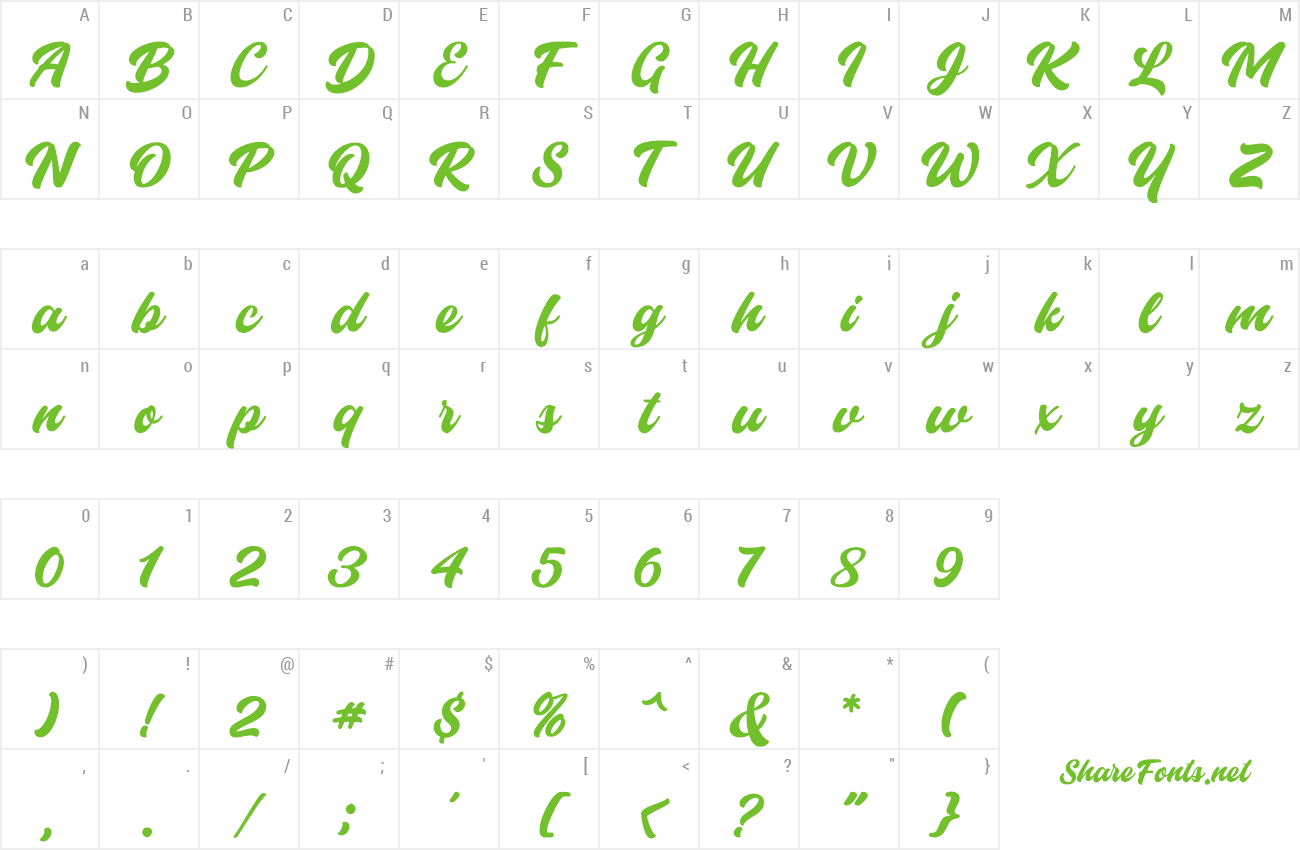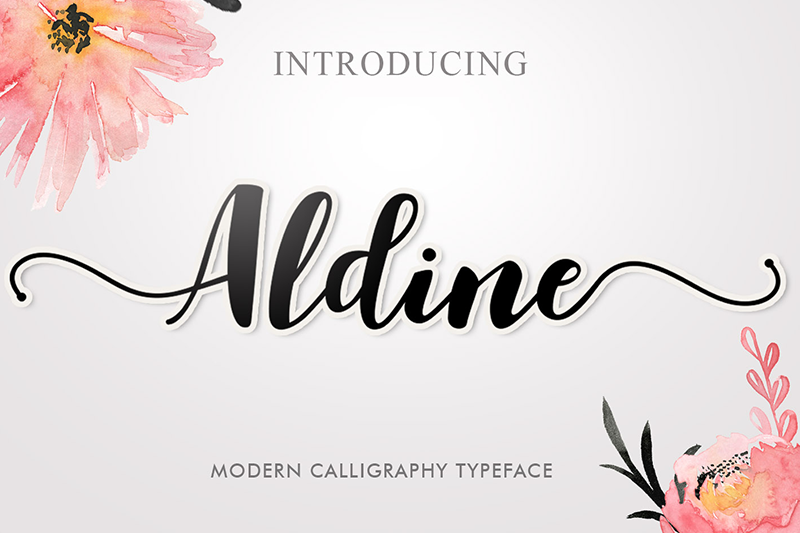
Free and Premium Quality Fonts - Best Premium FontsOnce they have been copied into the fonts folder safely eject your mobile device from your computer. Drag your custom fonts into that folder. Calligraphy is an artistic writing style where the pressure is varied to create thick and thin lines all in a single stroke.
Calligraphy fonts download for picsart. Find picsart folder in your mobile device open picsart folder and find fonts folder in it. Use these fonts to create wedding invitations scrapbook pages or custom letterhead without ever picking up a pen. Shailendra by calligraphy fonts 5728 downloads 1403 yesterday free for personal use. The height of calligraphy was reached in the middle age where monks developed the narrow writing style called gothic allowing more words to fit on a single line as paper was expensive at the time.
If you need a beautiful font for your successful project then marathi calligraphy font is the perfect choice for your design. This font app is also available. Calligraphy is an ancient writing technique using flat edged pens to create artistic lettering using thick and thin lines depending on the direction of the stroke. How to download calligraphy png banner editing picsart and pixel lab marathi new calligraphy fonts duration.